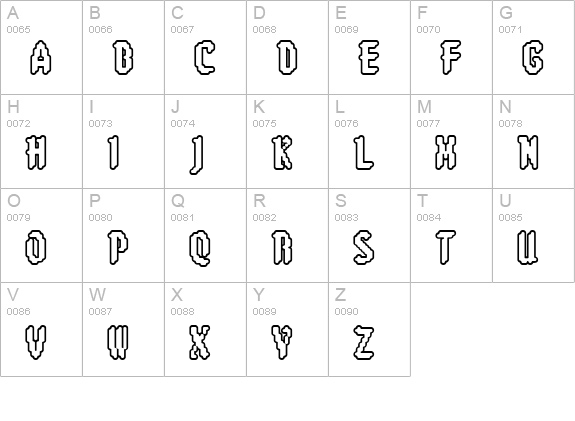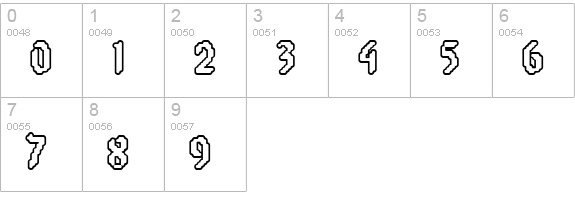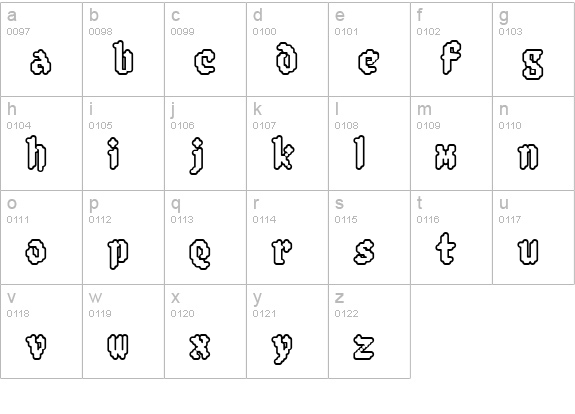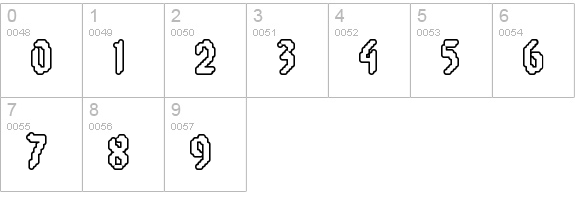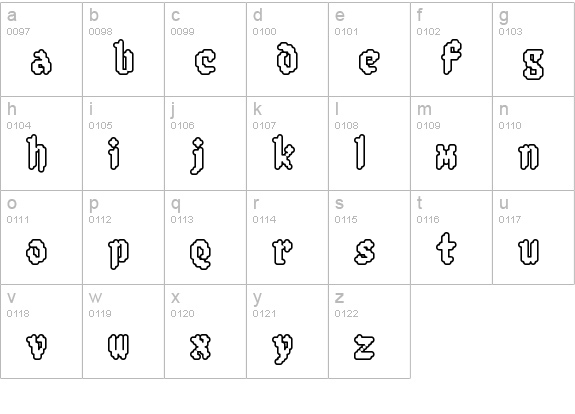
8-bit Limit RO (BRK) Font Details
The 8-bit Limit RO (BRK) font is a charming and nostalgic typeface that brings a touch of retro gaming style to your projects. With its pixelated design and playful aesthetic, this font is perfect for adding a fun and quirky element to your designs. The 8-bit Limit RO (BRK) font is free to download at FontsMarket.com, making it accessible to all who want to incorporate a bit of old-school flair into their creative work. Whether you're creating a vintage-inspired poster, a whimsical logo, or a retro video game design, this font is sure to bring a sense of nostalgia and playfulness to your projects. Download it today and let your creativity run wild with this delightful and free font!